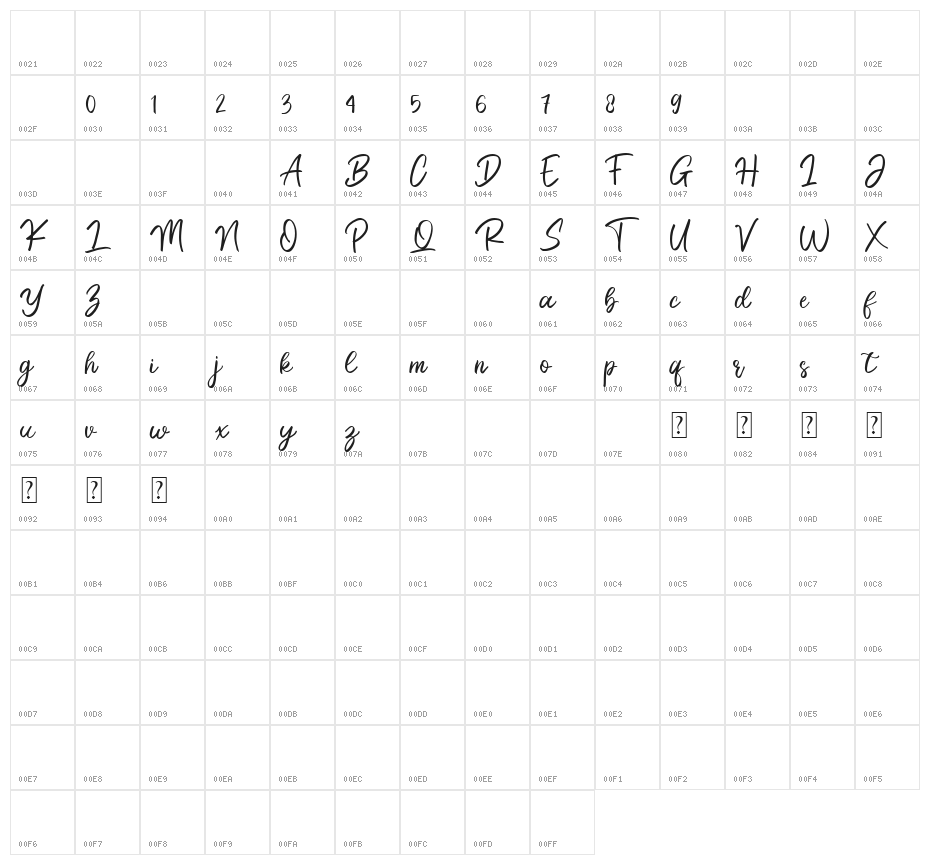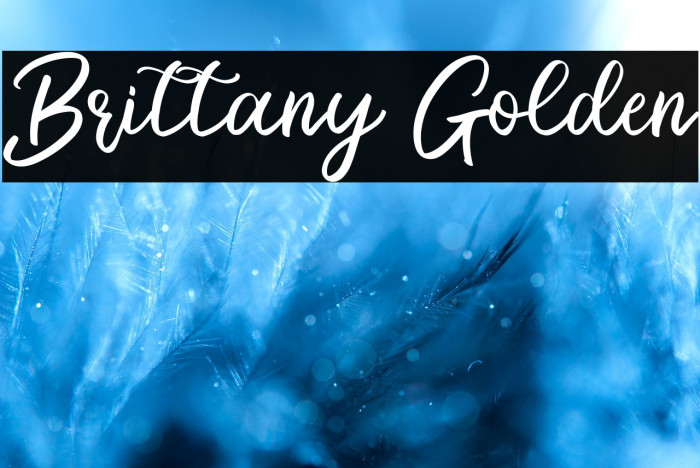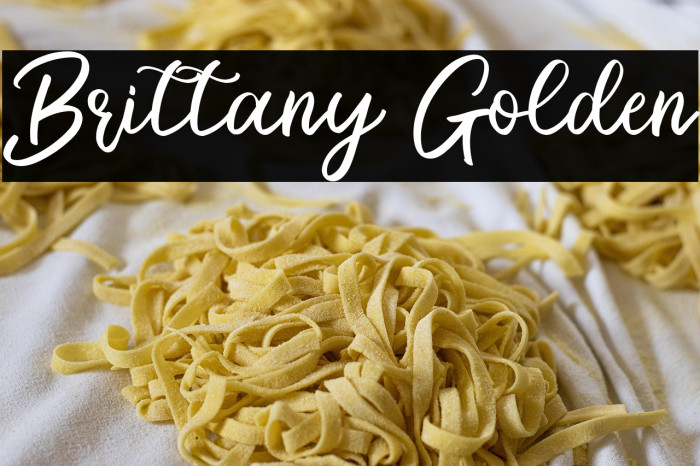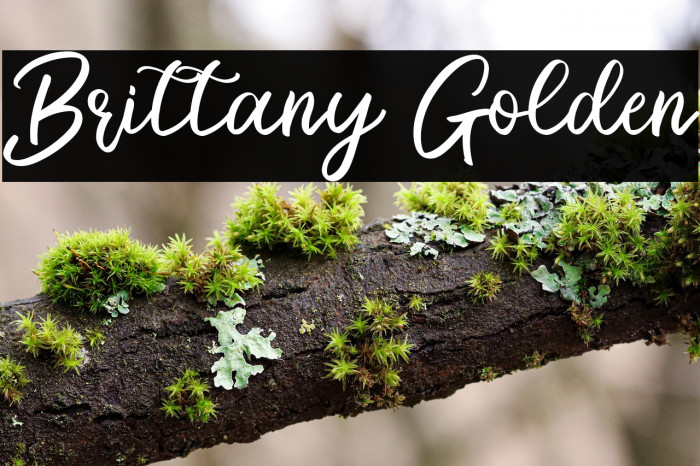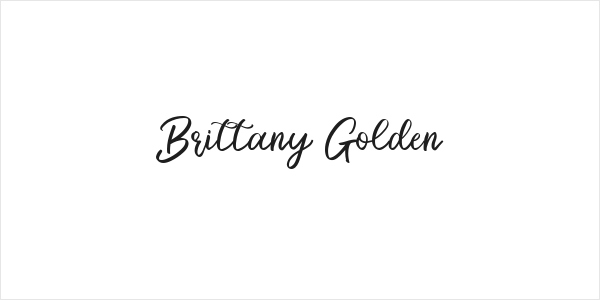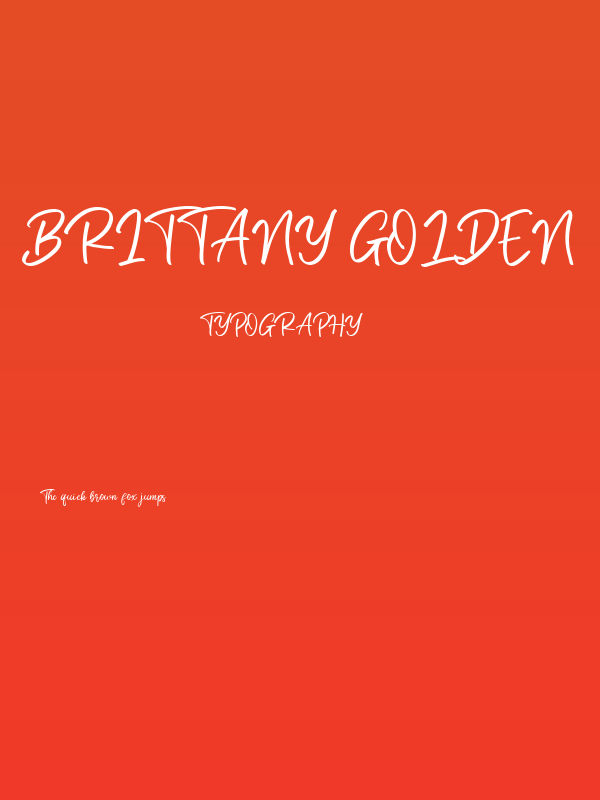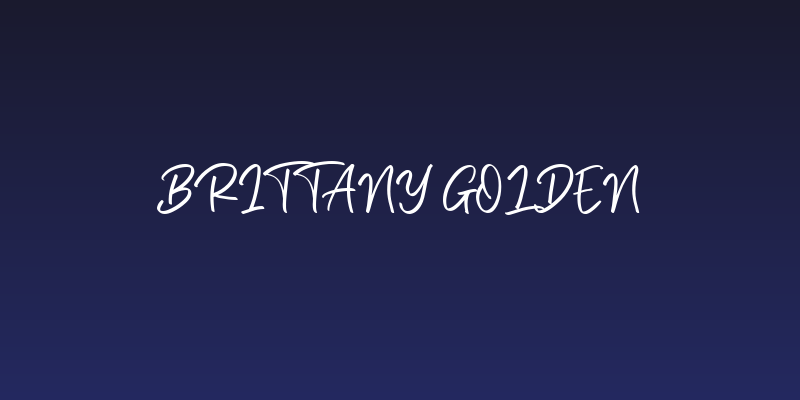
Brittany Golden Font
Brittany Golden Description
This font features a flowing, cursive style that exudes elegance and sophistication. The uppercase letters are tall and graceful, with sweeping curves and loops that give them a sense of movement. The lowercase letters are equally fluid, with a slightly more compact form that maintains readability while adding a touch of whimsy. The numerals are consistent with the overall style, featuring gentle curves and a balanced weight. This font is perfect for projects that require a personal, handwritten touch, such as invitations, greeting cards, or branding materials. Its decorative nature makes it stand out, yet it remains legible and versatile for various design applications.
| Proposed Projects | Ideal for invitations, greeting cards, branding materials, and any project needing a personal touch. |